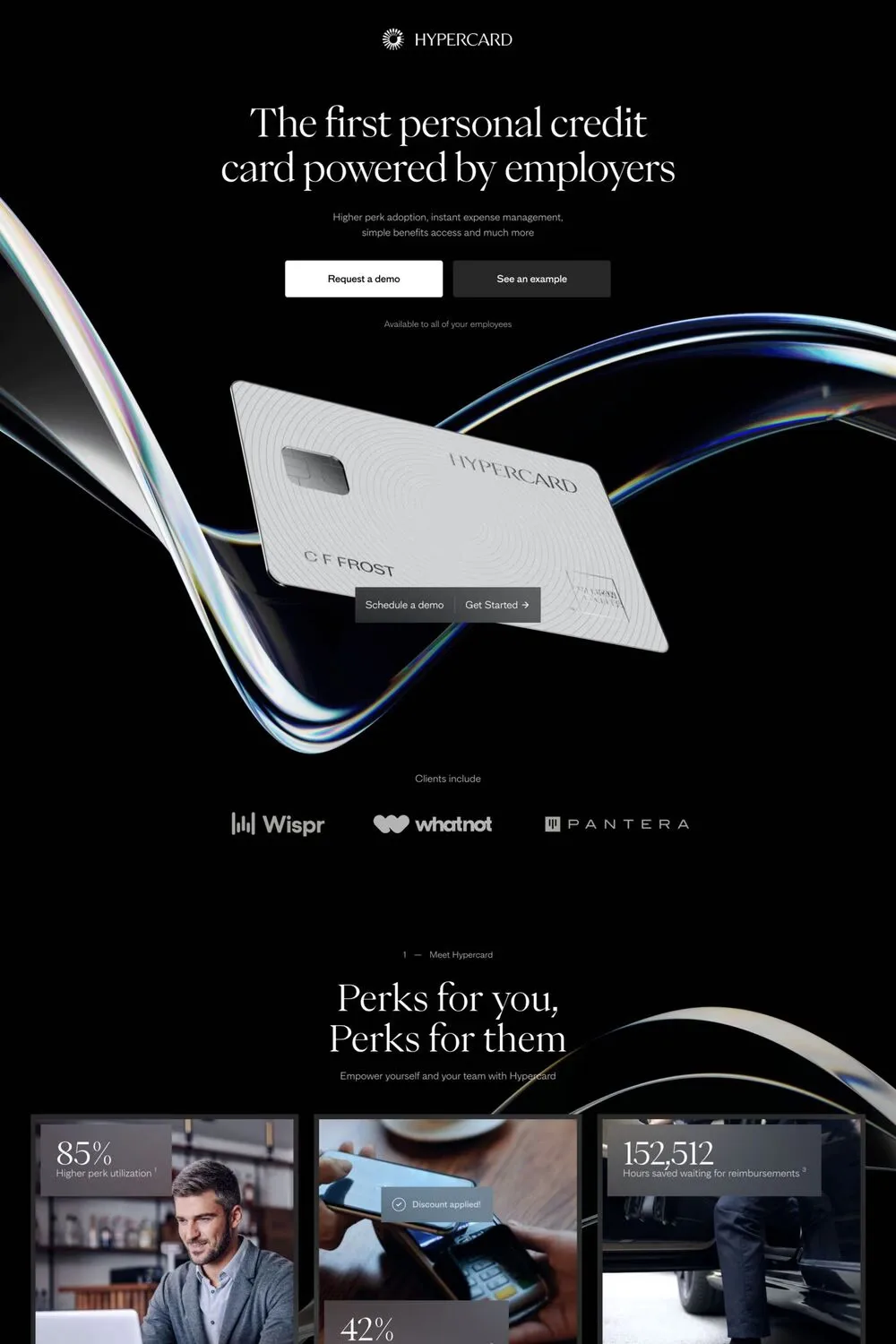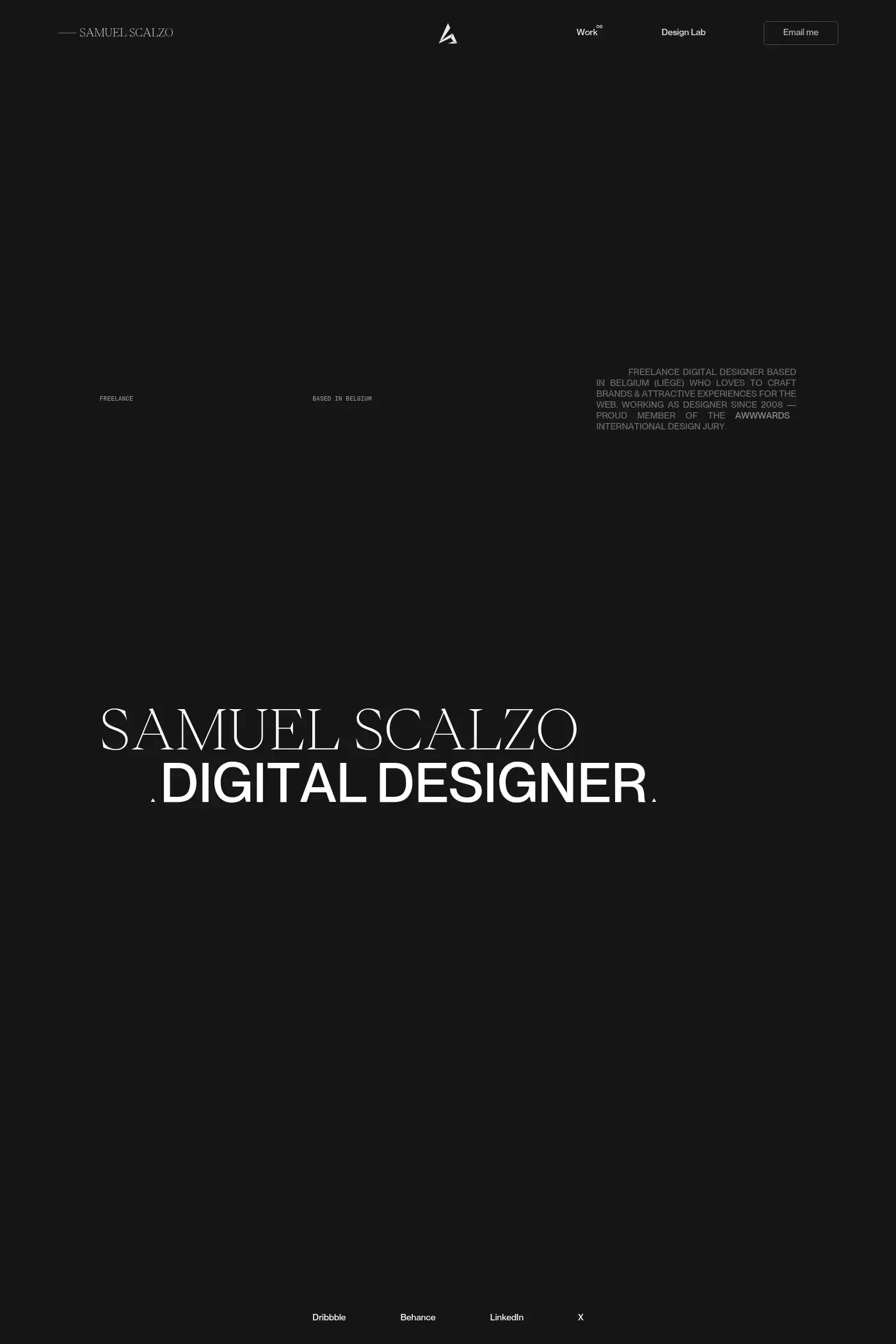
Eiko is a serif typeface from Pangram.
Eiko is an indisputable statement of elegance and refinement ● Every curves and bezier points were applied with a sense of purpose. It is inspired by the work of Eiko Ishioka, a multitalented Japanese artist, this typeface seeks to convey the same aspect of her work in these typographic explorations.